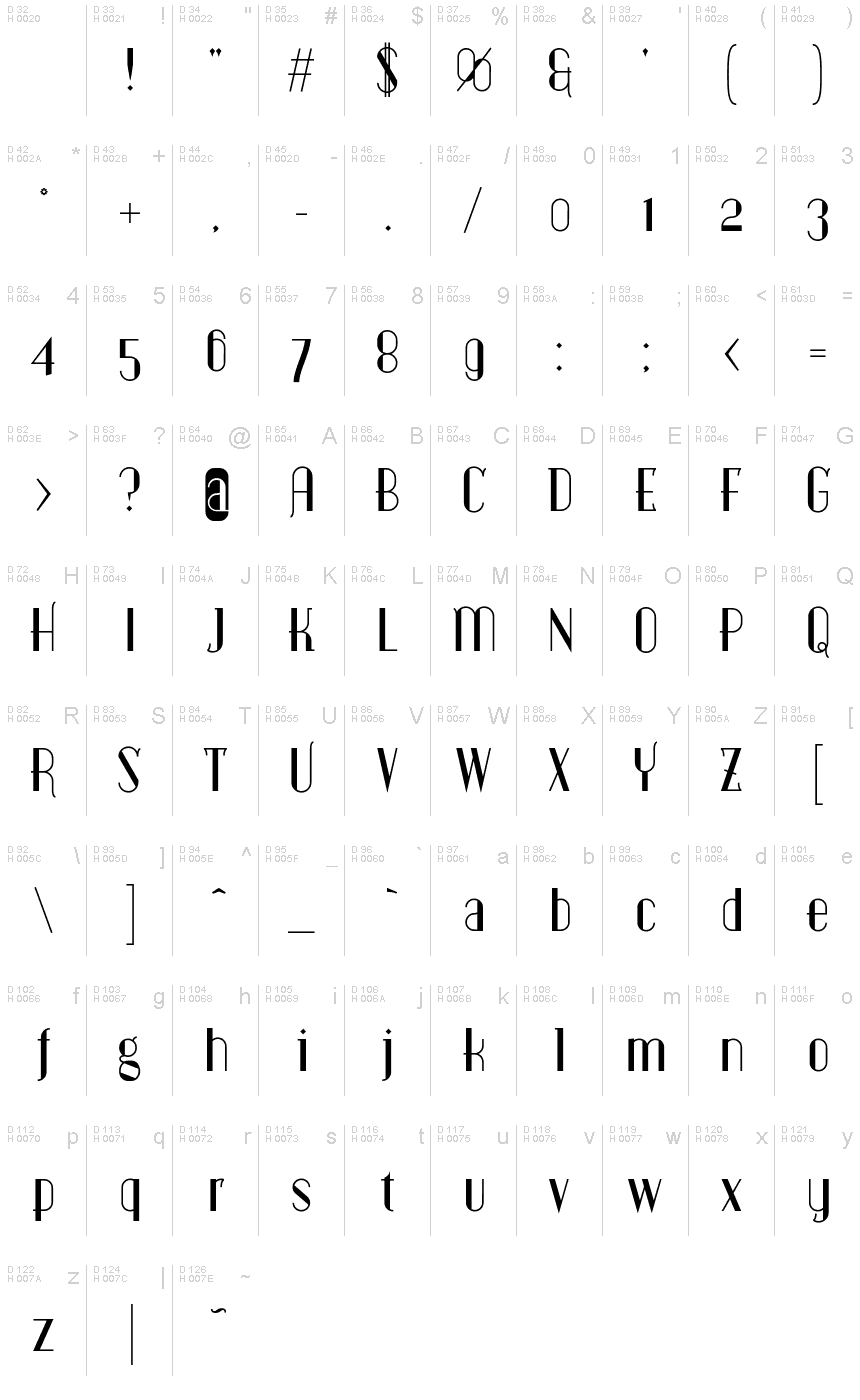
Funky Foodie Doodie Thin
Funky Foodie Doodie Thin is a retro-inspired display font from the Funky Foodie Doodie font family, designed by Tup Wanders. This semi-light font captures the essence of Art Deco 1930's style, making it a perfect fit for projects in the food industry that seek to evoke nostalgia and vintage charm.
With its extra-condensed width, this font lends a sleek and sophisticated look to menus, packaging, and branding materials. Its thin strokes bring elegance and finesse to designs while maintaining readability. Perfect for cafes, bistros, or restaurants looking to add a touch of old-world glamour to their visual identity.
Let Funky Foodie Doodie Thin transport your audience back in time with its unique retro appeal.